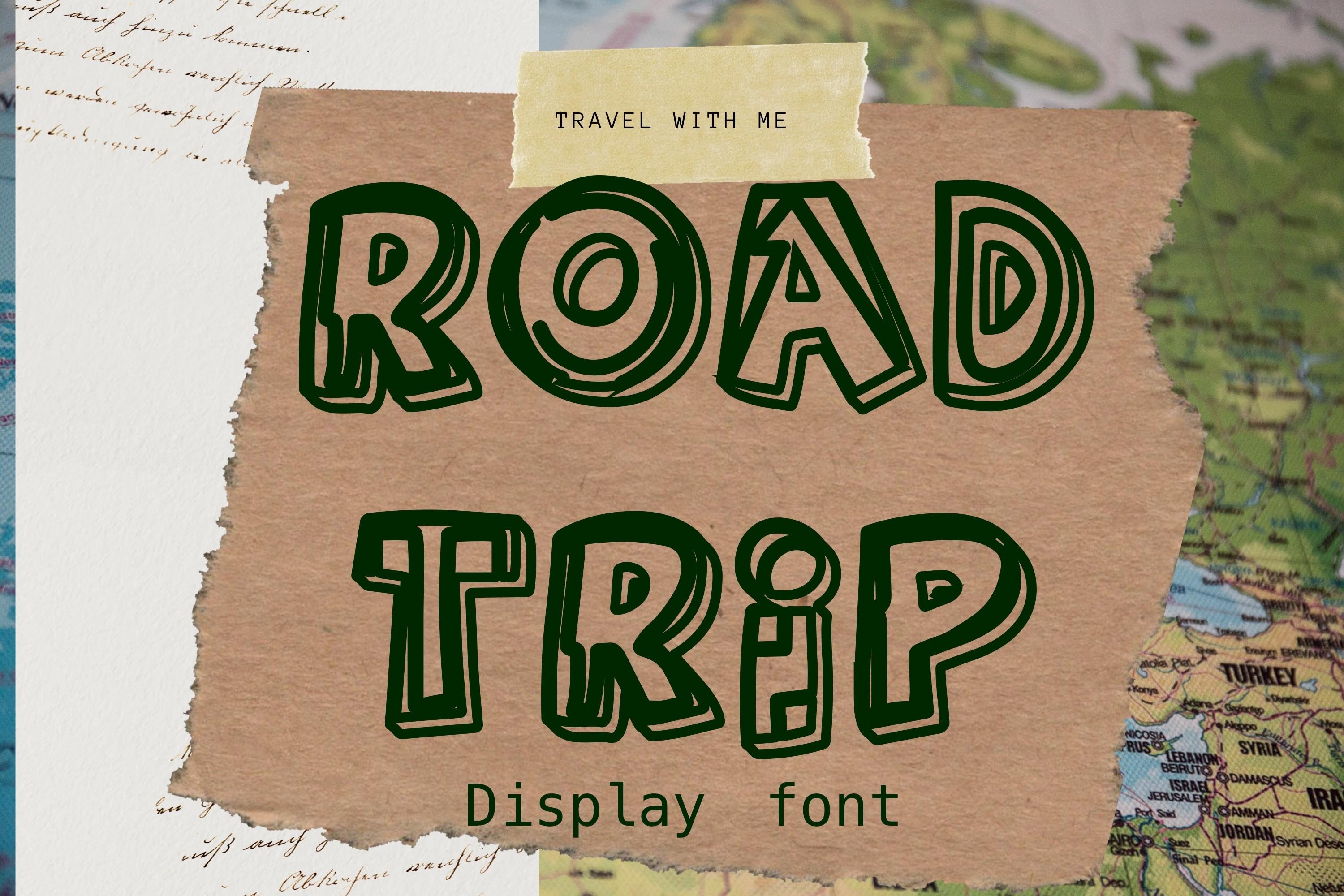
Road Trip Font Description
Road Trip is a cool, outlined and friendly display font. Whether you are using it for cartoon-related designs, children’s games, quotes, titles, brand names, book covers, posters, or just any creation that requires a touch of beauty, this font is a great choice.